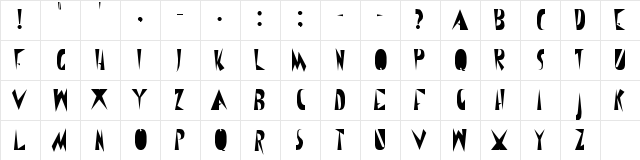
CoNfEsSiOnS oF a sInNeR Regular
Designer: Henry Cohn
Design Context for CoNfEsSiOnS oF a sInNeR
CoNfEsSiOnS oF a sInNeR is a composed and adaptable typeface that performs quietly and consistently across a wide range of design contexts.
Pro Tip: Use CoNfEsSiOnS oF a sInNeR in both headline and body roles to test its range before committing to a single application.